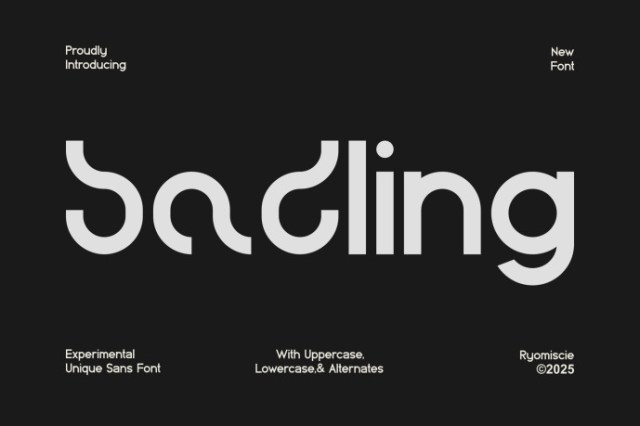
Badling Unique Sans Font
Badling Unique Sans Font is a bold and authentic display font. The font is suitable for any branding project like logo, esport, and many more. outstanding in a wide range of contexts.
• Uppercase
• Lowercase
• Alternate